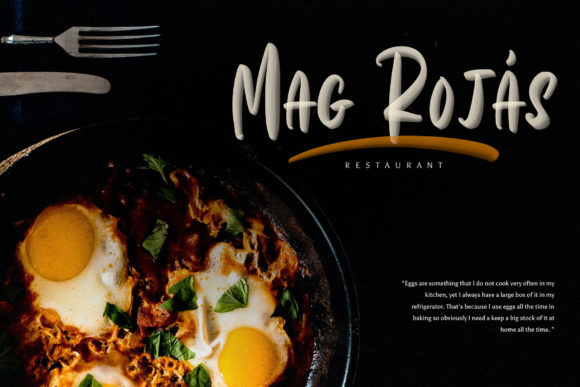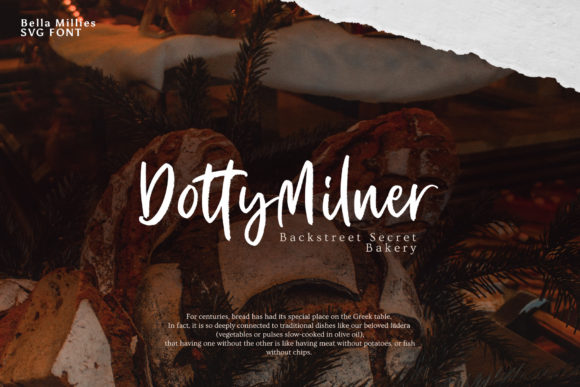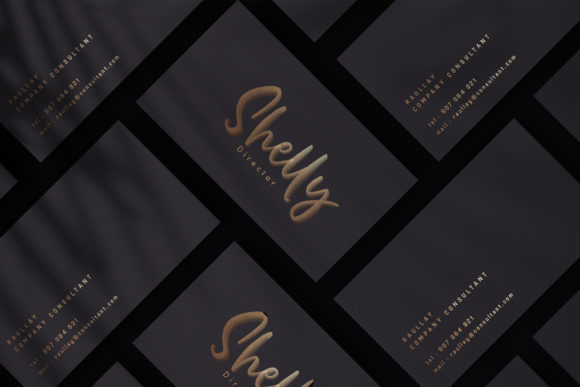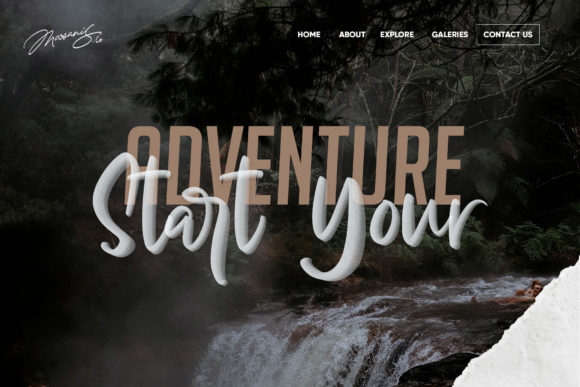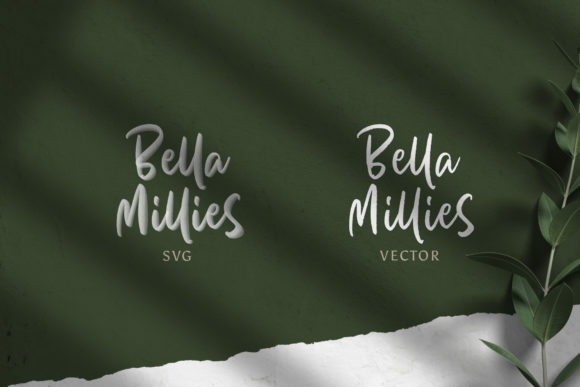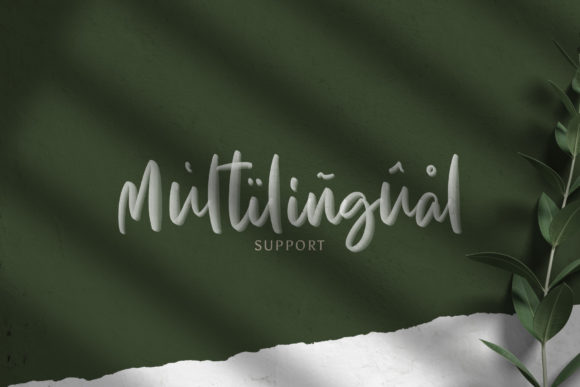
Introduction to Bella Millies Font
Bella Millies simplifies elegance into one truly outstanding handwritten font.
Bella Millies Font offers exceptional quality and versatility, making it a valuable addition to your design toolkit. Whether you’re creating for personal projects or commercial use, Bella Millies Font delivers professional results.